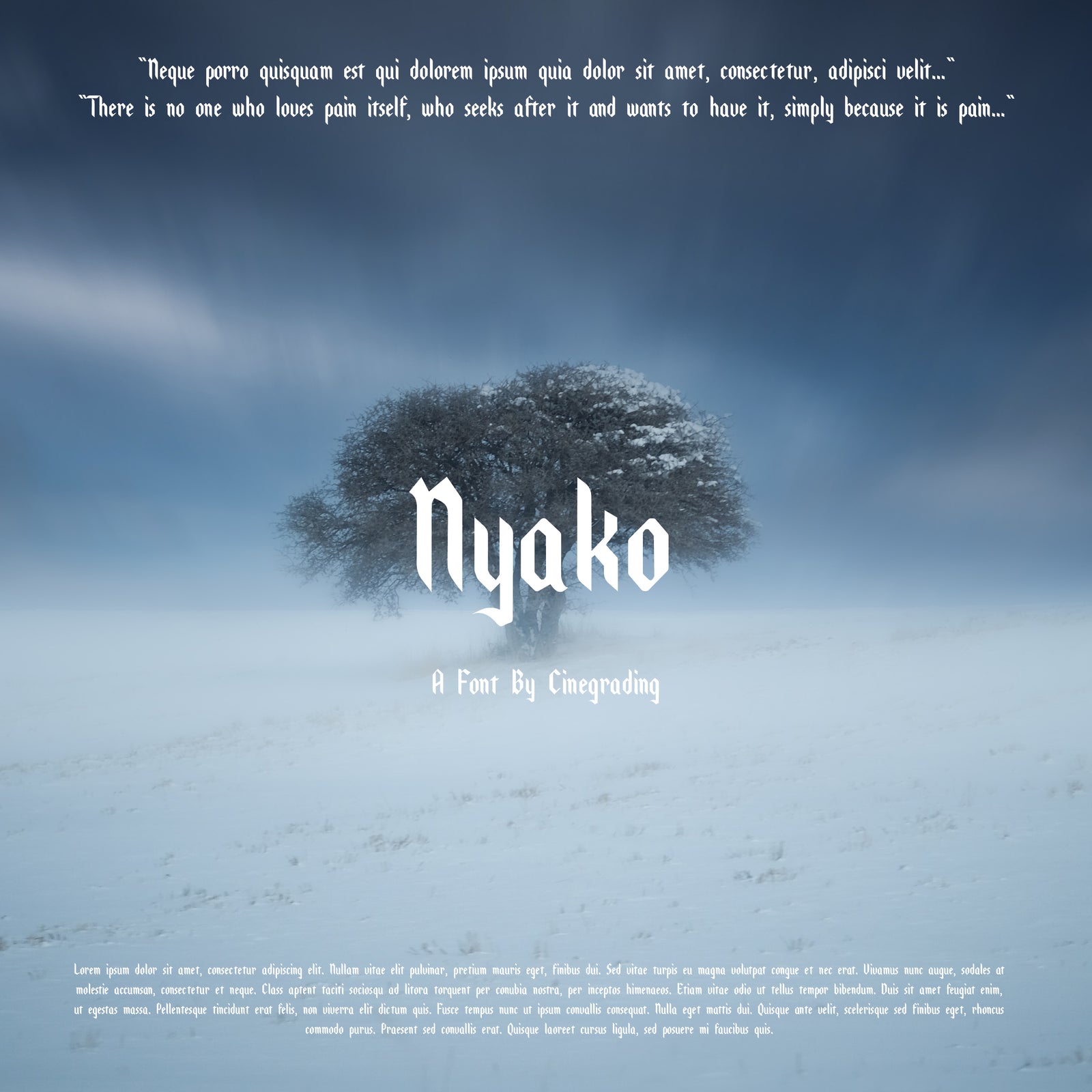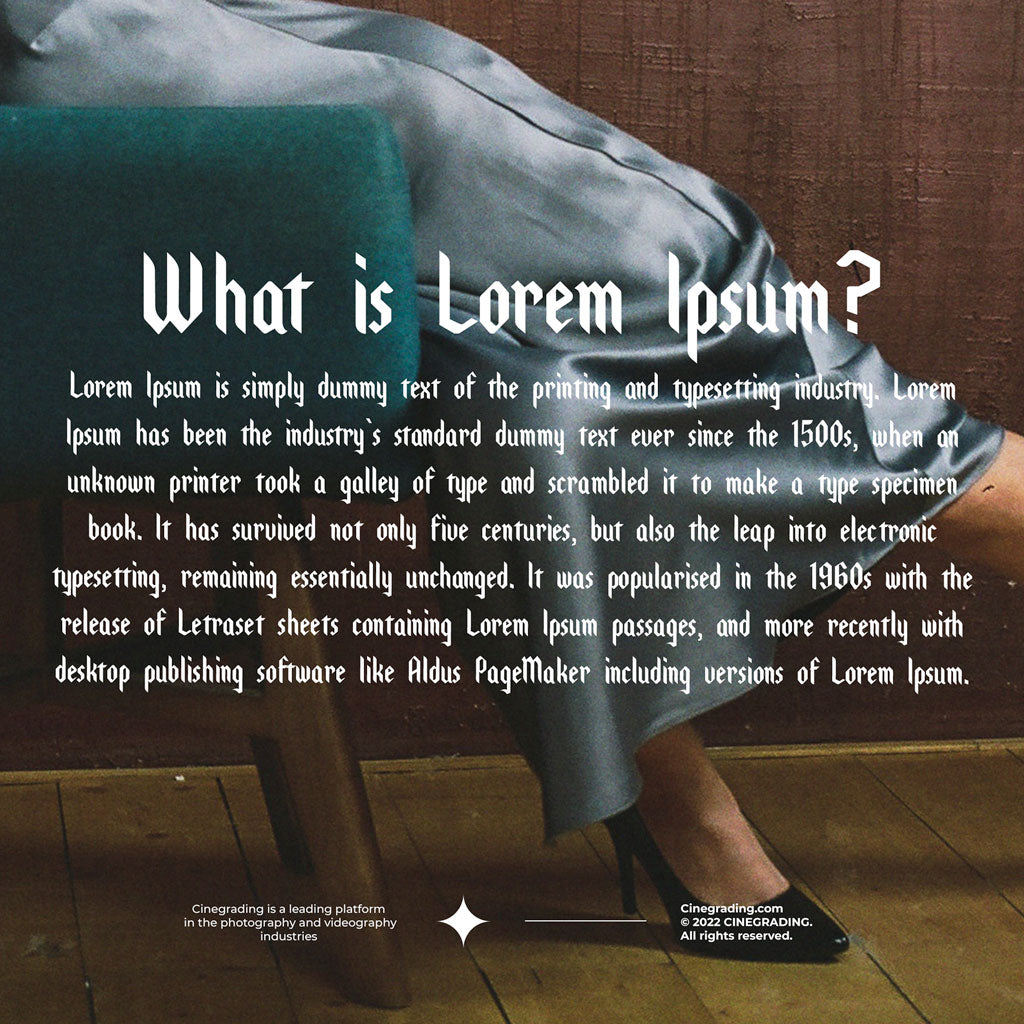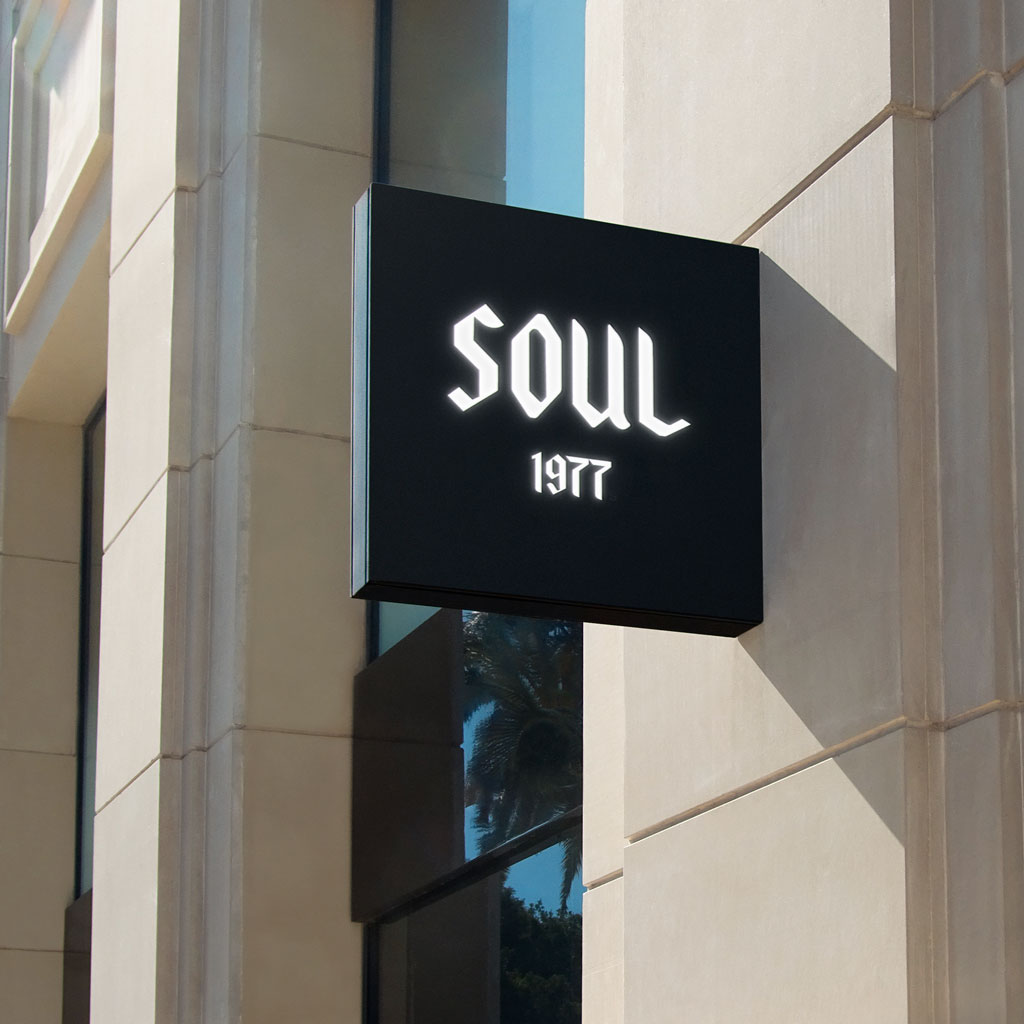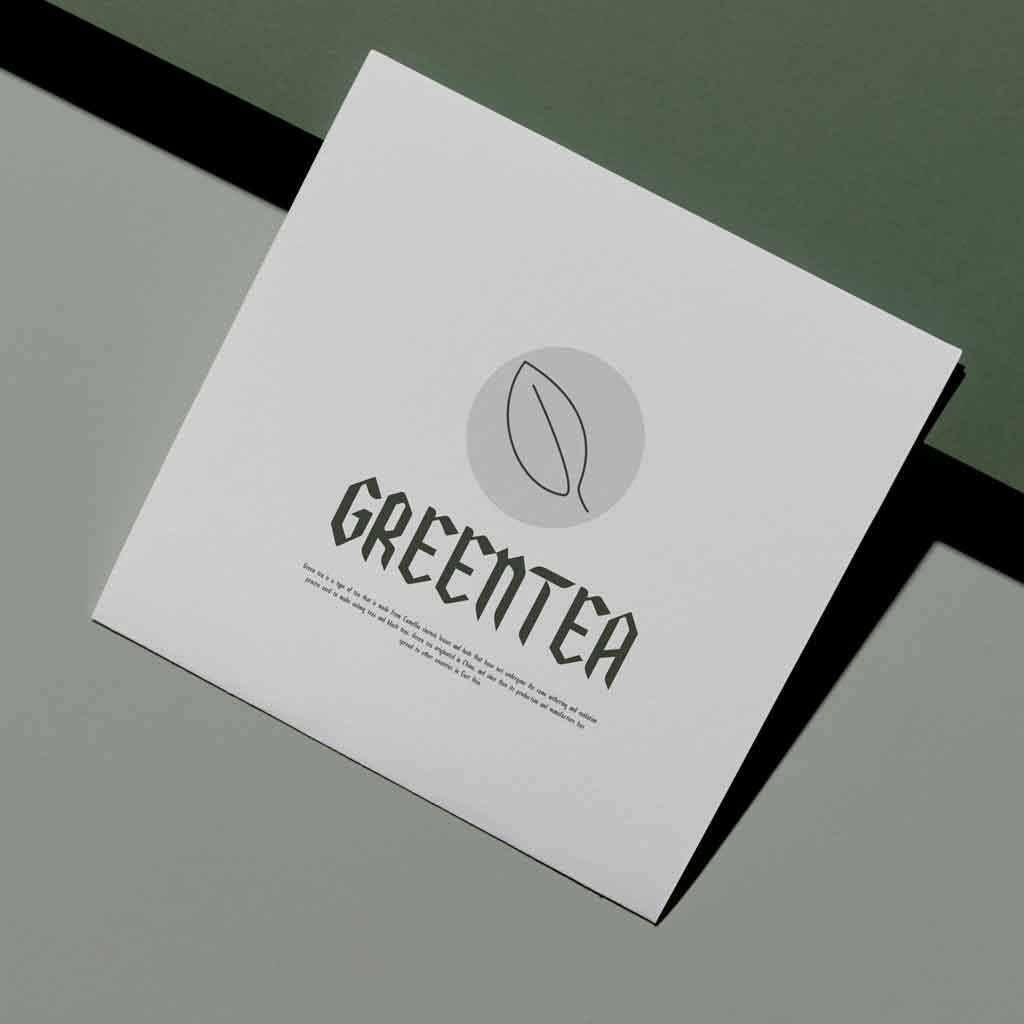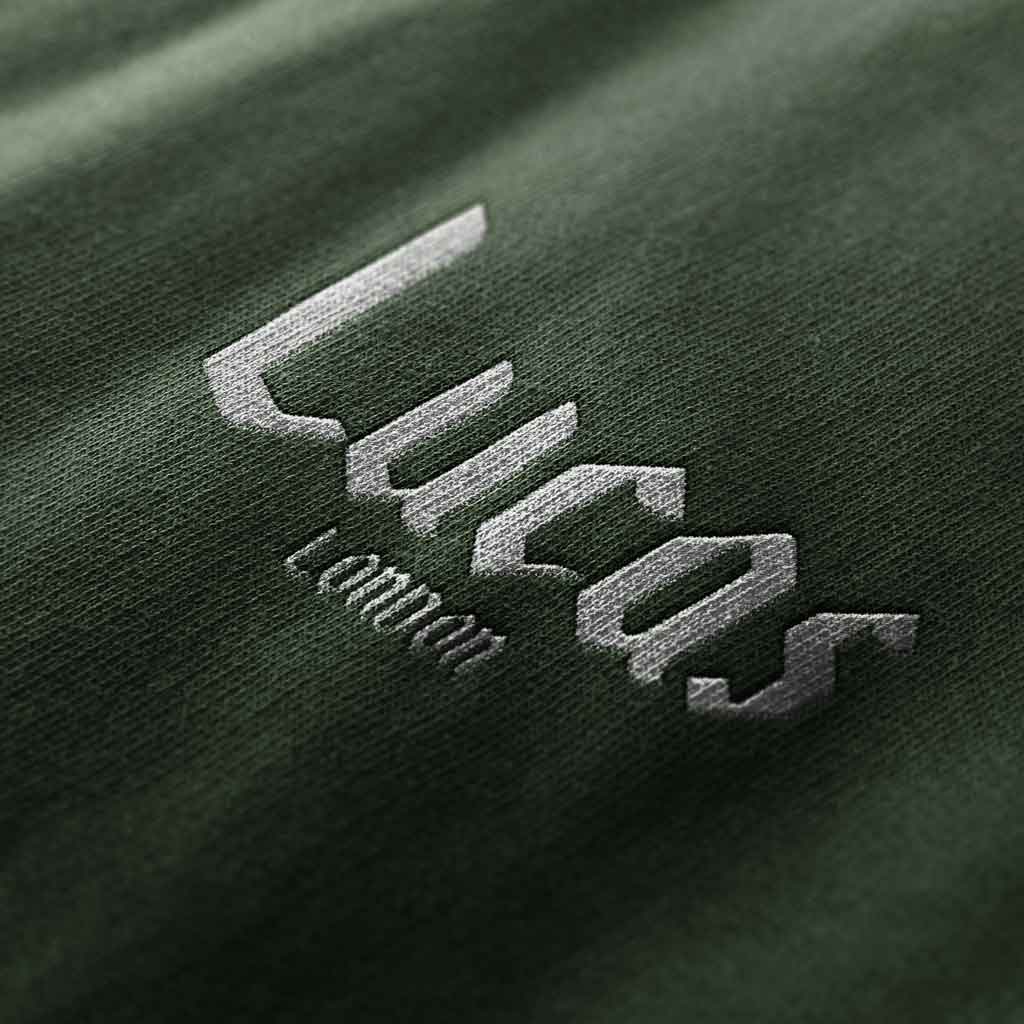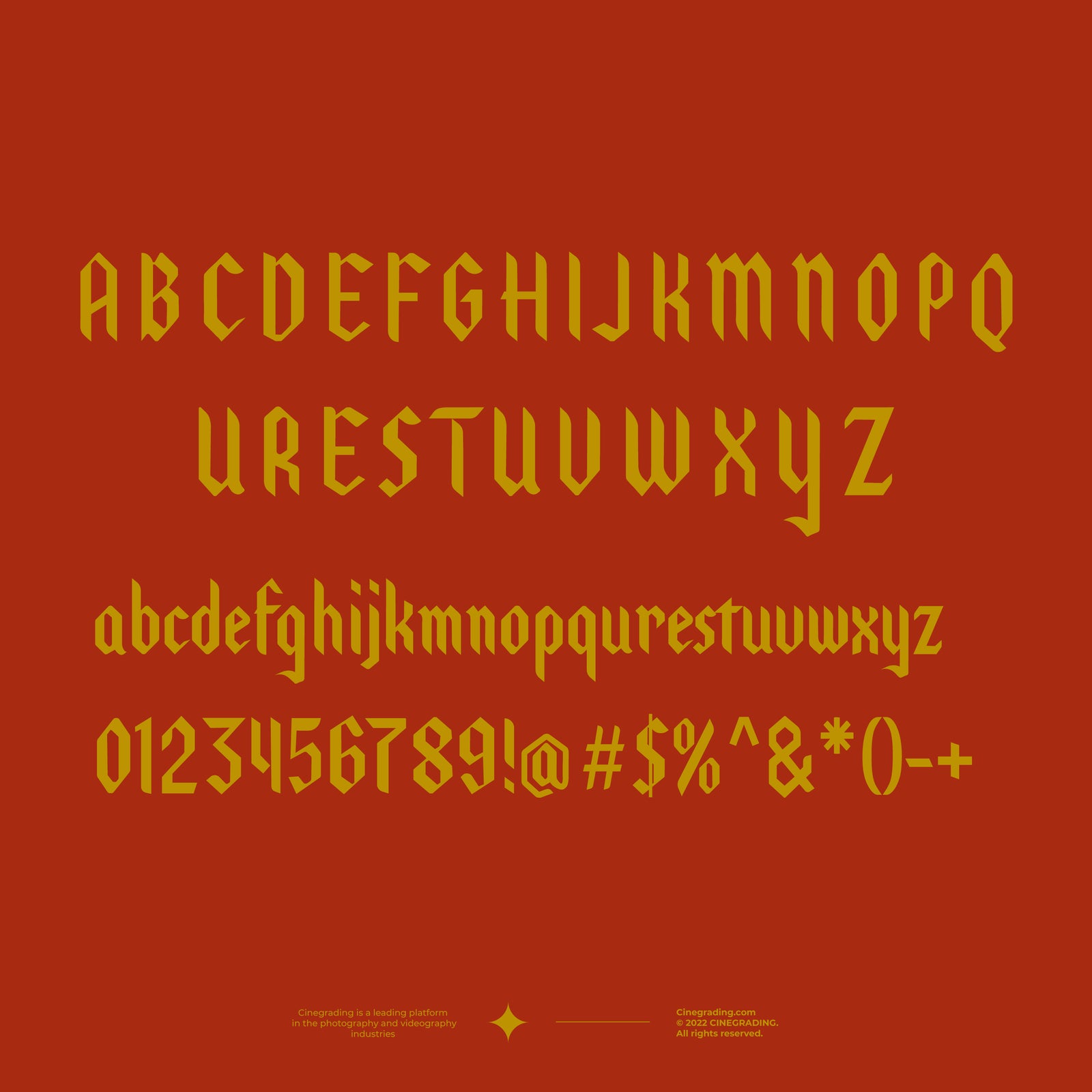
+Cine Nyako Font
With web content, you only have an instant to capture the attention of your audience, so don’t waste that instant with tired old fonts. Instead, make an unforgettable impact with Nyako, an intense, cutting-edge design that will grab reader attention and lead them to your message.